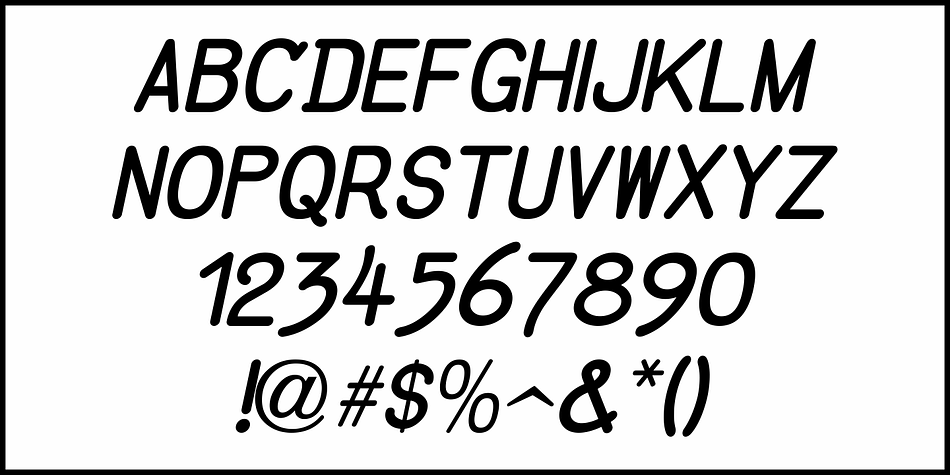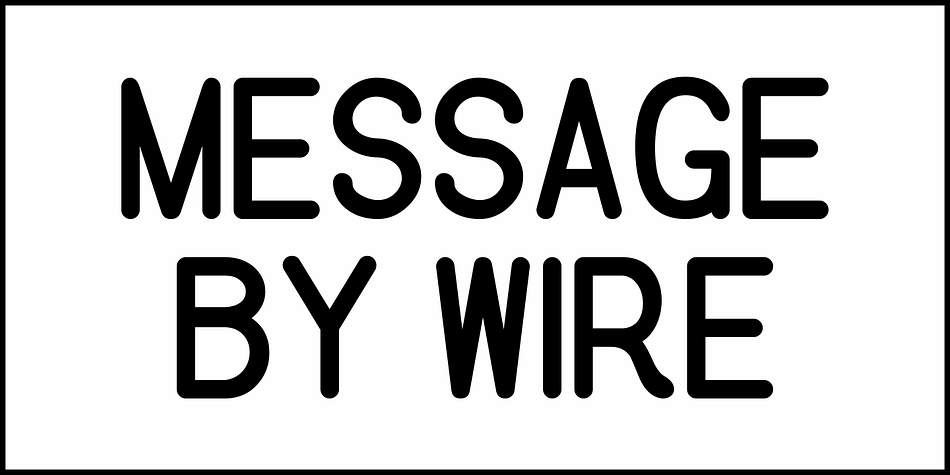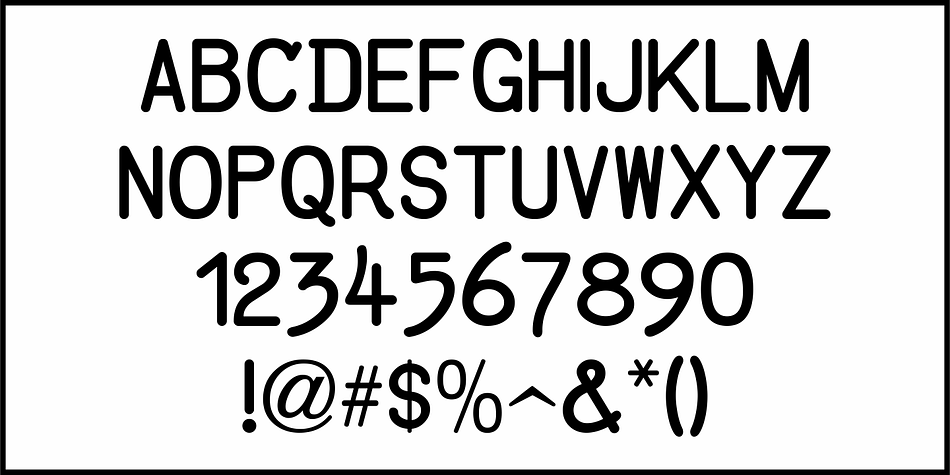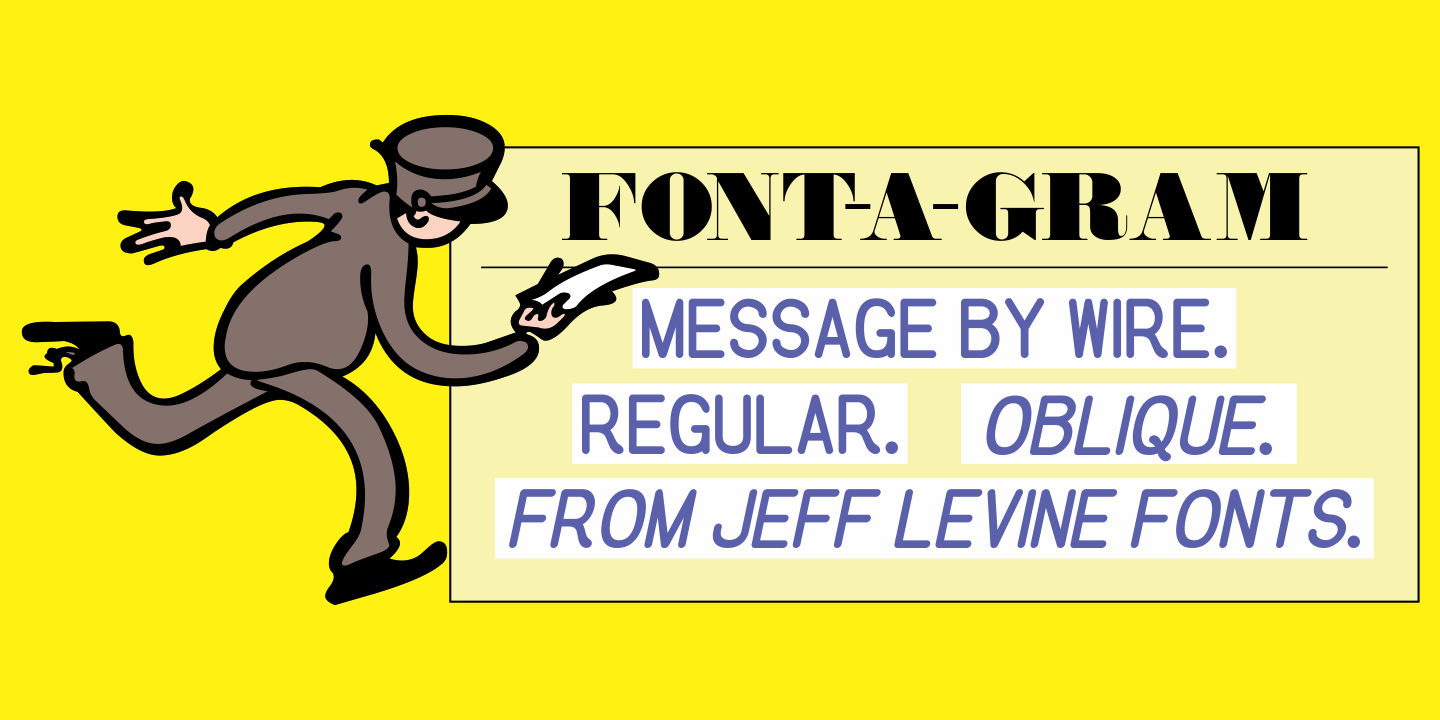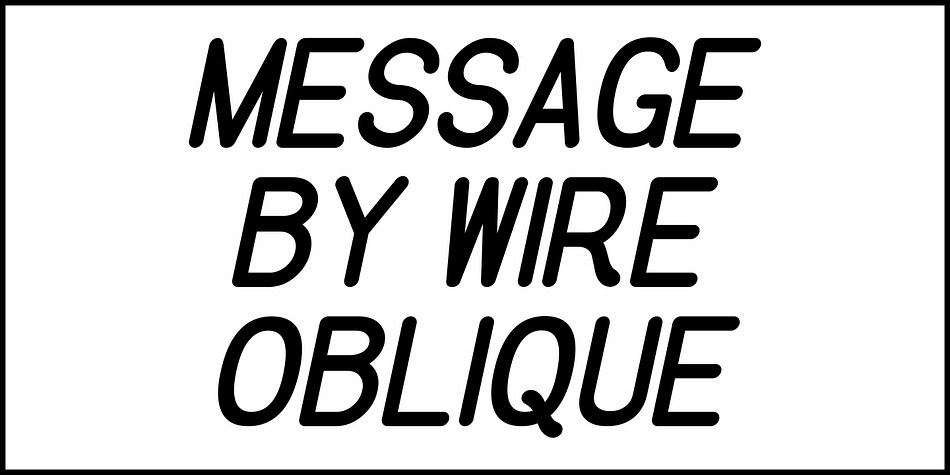
MESSAGE BY WIRE JNL
Designed by Jeff Levine, Message by Wire JNL is a display sans font family. This typeface has two styles and was published by Jeff Levine Fonts.
A Western Union telegram from 1951 provided the typographic inspiration for Message by Wire JNL, which is available in both regular and oblique versions.
Unlike other available type fonts which emulate the ink ribbon-struck printed characters from the teletype machines, this version was redrawn to celebrate the actual type design itself.
The typeface letter spacing has been equalized so that when in use, it looks much like the printed output of an old telegram messsage.